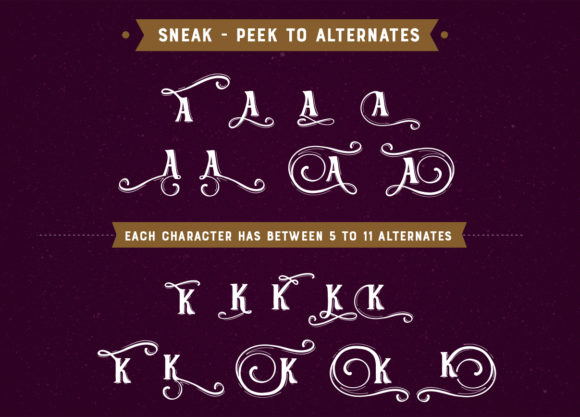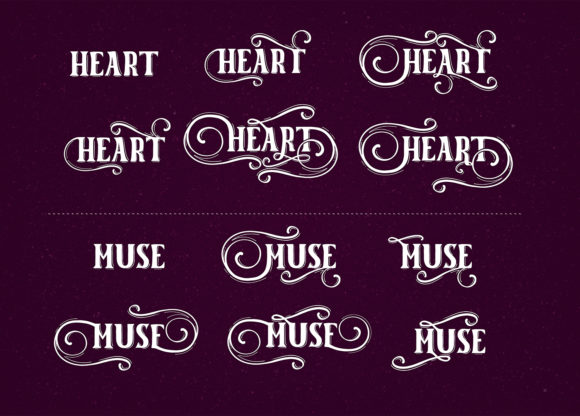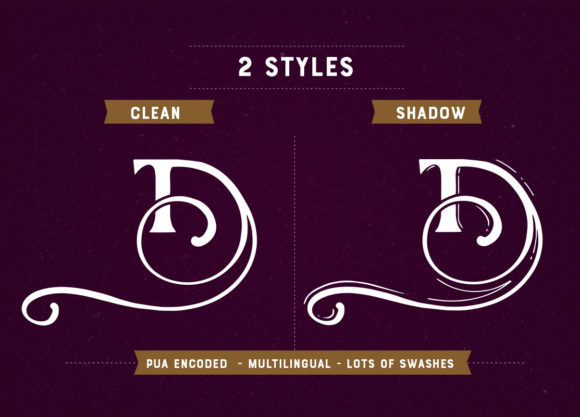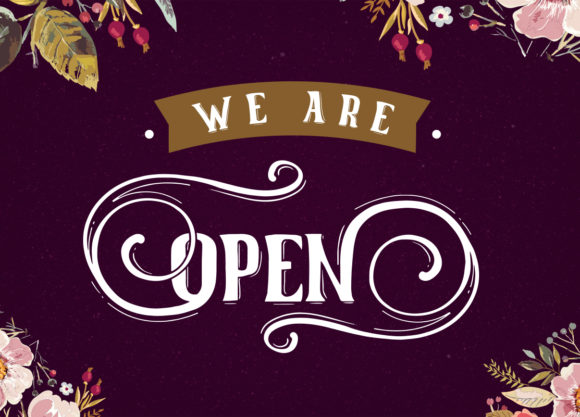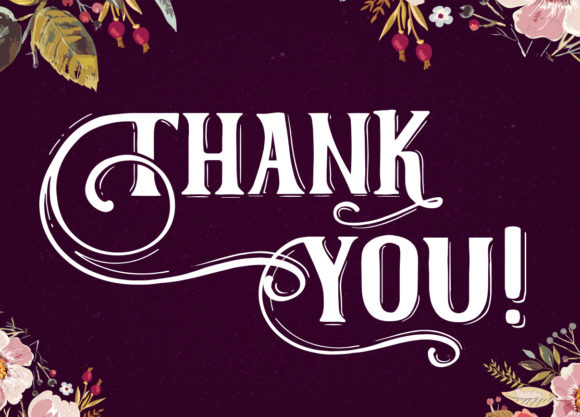
Introducing Corisa Font: A Stunning Hand-Crafted Display Font
Are you tired of using the same old fonts for your designs? Look no further! Corisa Font is a beautiful, hand-crafted display font that is sure to take your designs to the next level. With its stunning alternates and versatility, Corisa Font is perfect for a wide range of uses, from small business designs to t-shirt designs, mugs, and other craft designs.
What Makes Corisa Font So Special?
Corisa Font is a unique and eye-catching font that is hand-crafted with love and care. Its stunning alternates add a touch of elegance and sophistication to any design, making it perfect for designers who want to create something truly special. Whether you’re designing a logo, a brochure, or a social media post, Corisa Font is sure to make your design stand out from the crowd.
Perfect for Small Business Designs
As a small business owner, you want your brand to stand out from the competition. Corisa Font is the perfect way to do just that. Its professional and polished look makes it ideal for use in logos, business cards, and other marketing materials. With Corisa Font, you can create a cohesive brand identity that will help you establish a strong presence in your industry.
T-Shirt Designs and Other Craft Projects
Corisa Font is also perfect for crafters and DIY enthusiasts who love to create their own t-shirt designs, mugs, and other craft projects. Its bold and eye-catching design makes it perfect for use on a wide range of products, from t-shirts and hoodies to mugs and phone cases. With Corisa Font, you can add a personal touch to your craft projects and make them truly unique.
Key Features of Corisa Font
- Hand-crafted display font with stunning alternates
- Perfect for small business designs, t-shirt designs, mugs, and other craft designs
- Professional and polished look
- Bold and eye-catching design
Why Choose Corisa Font?
There are many fonts to choose from, but Corisa Font stands out from the rest. Here are just a few reasons why:
- Unique and eye-catching design
- High-quality and professional look
- Easy to use and versatile
- Perfect for a wide range of design projects
Tips for Using Corisa Font
Here are a few tips for using Corisa Font in your designs:
- Use it as a headline font to add a touch of elegance and sophistication
- Pair it with a simple sans-serif font for a bold and modern look
- Use it to create a cohesive brand identity for your small business
Corisa Font is a stunning hand-crafted display font that is perfect for designers and crafters who want to create something truly special. With its unique and eye-catching design, professional and polished look, and versatility, Corisa Font is sure to take your designs to the next level. Whether you’re designing a logo, a brochure, or a t-shirt, Corisa Font is the perfect choice.